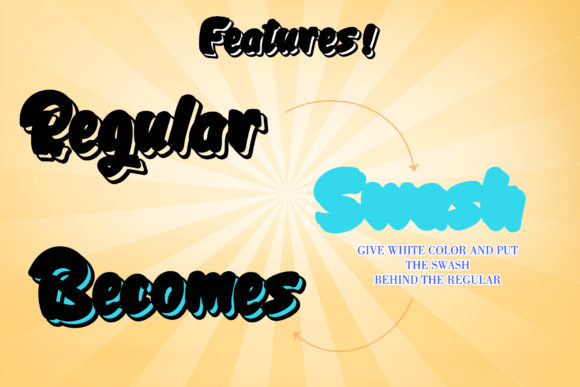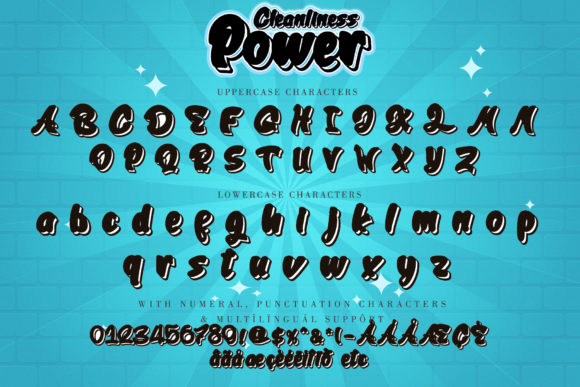
Introduction to Cleanliness Power Font
As a designer, there’s nothing quite like the thrill of bringing a creative project to life. You’re pouring your heart and soul into every detail, from the colors to the typography, and it’s all coming together in a way that’s truly magical. But what if you could elevate your design to the next level with a single, elegant font? Enter the Cleanliness Power Font, a stunning script that’s sure to add a touch of sophistication to any project.
Whether you’re working on a high-end branding campaign or a personal passion project, the Cleanliness Power Font is a valuable resource that’s sure to impress. With its PUA-encoded design, you’ll have access to a wealth of special features, including alternate glyphs and ligatures. And the best part? It’s a free download, making it a must-have for any designer looking to add some high-quality flair to their work.
Key Features of Cleanliness Power Font
- High-quality design for various creative projects, including logos, branding, and typography.
- Unique characteristics: Clean lines, modern aesthetic, and a subtle yet powerful feel, making it perfect for designs that require a touch of sophistication.
Honest Review: Cleanliness Power Font
I recently came across the Cleanliness Power Font while working on a creative project, and I must say, it’s a great addition to my design resources. The font is high quality and offers a crisp, clean look that’s perfect for modern designs.
Here are some of the things that work well with Cleanliness Power Font:
- Great for modern and creative projects
However, I do have to mention a few limitations:
- May not be suitable for very old or traditional designs
- Limited character set, which may not include all the symbols or languages you need
Overall, I’m impressed with Cleanliness Power Font, and I think it’s a great addition to any designer’s toolkit. With its high-quality design and transparent background, it’s a versatile font that can be used in a variety of creative projects. ⚠️ Just be aware of the limitations, and you’ll be all set. ✨
The Cleanliness Power Font is a high-quality design resource perfect for any creative project. With its modern and sleek design, it’s ideal for use in presentations, marketing materials, and digital products.
To get the most out of the Cleanliness Power Font, use it with a transparent background to make it stand out in your designs. You can also pair it with other fonts for a unique and creative look.
The Cleanliness Power Font is perfect for use in a variety of creative projects, including: